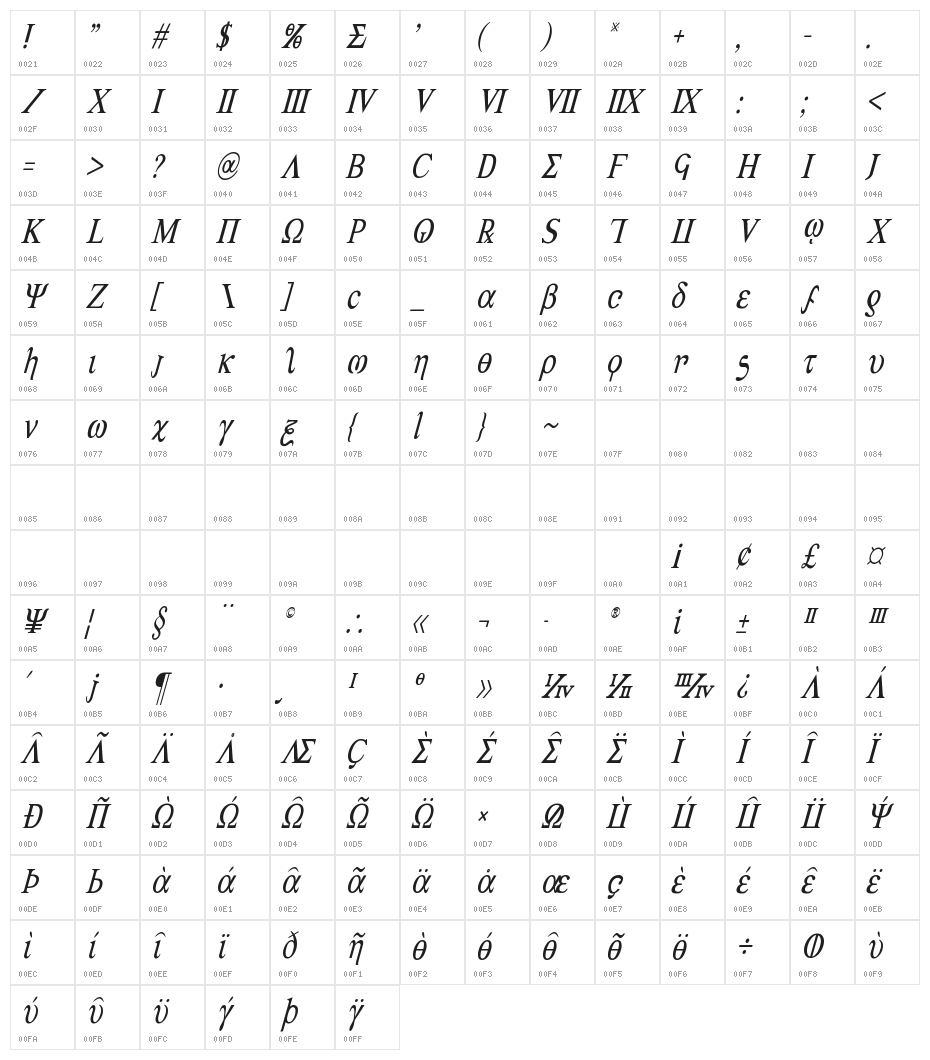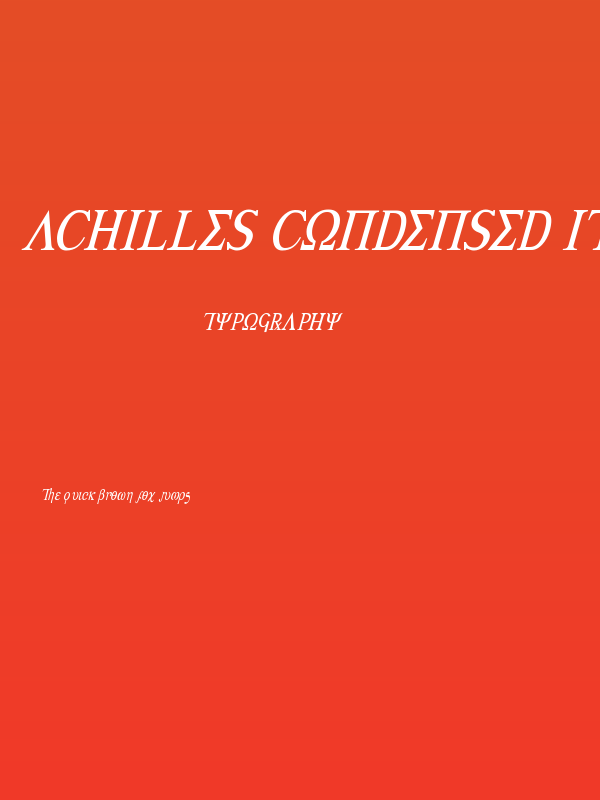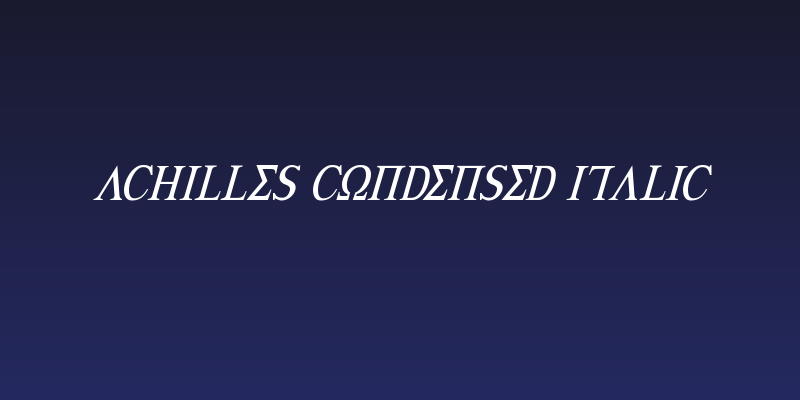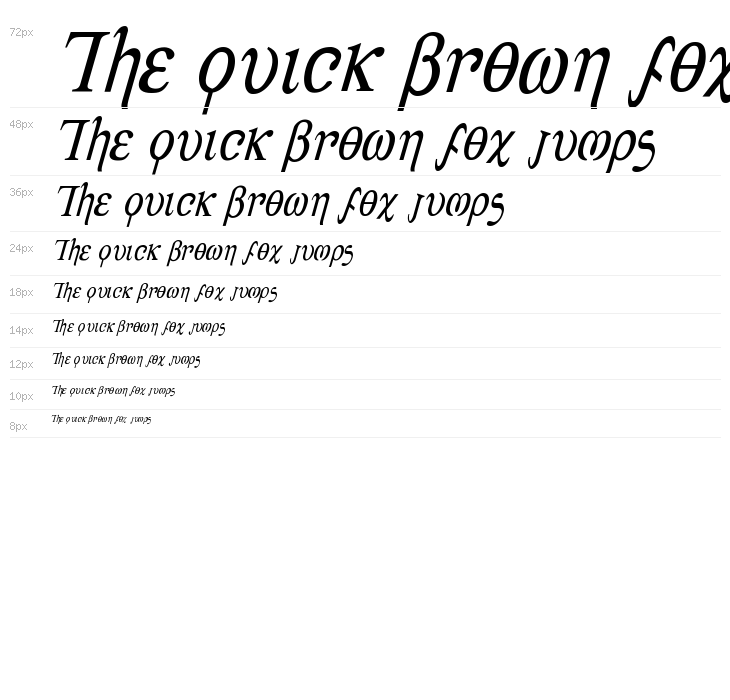
Achilles Condensed Italic Font
Achilles Condensed Italic Description
This font features a classic italic style with a condensed form, giving it a sophisticated and elegant appearance. The letters are slightly slanted, enhancing the dynamic and fluid nature of the typeface. The strokes are moderately thick, providing a balanced contrast that ensures readability while maintaining a stylish look. The uppercase letters are bold and commanding, while the lowercase letters retain a graceful flow. The numerals are consistent with the overall design, offering clarity and uniformity. Special characters are well-integrated, complementing the font's aesthetic. This typeface is ideal for projects that require a touch of elegance and tradition.
| Proposed Projects | Ideal for book covers, formal invitations, branding, and editorial design. |